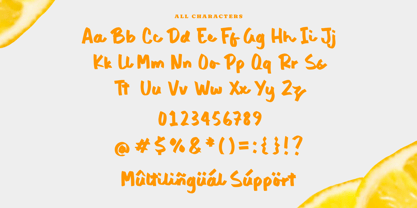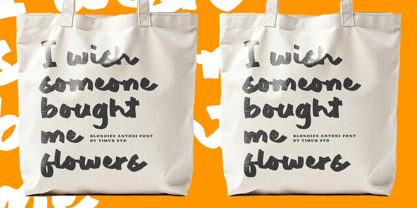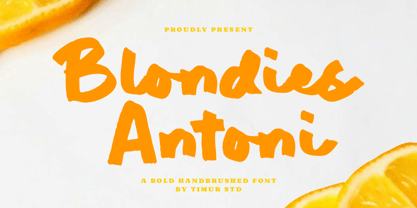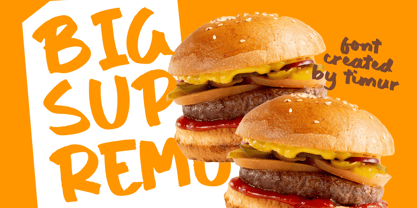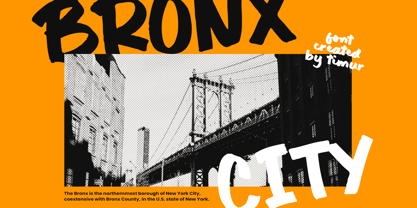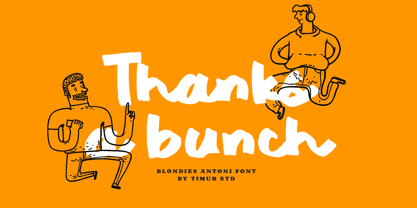
Blondies Antoni
by Timurtype
The Blondies Antoni Font Family was designed by Wara Sigit Tri Pamungkas and published by Timurtype. Blondies Antoni contains 1 styles. More about this family
Blondies Antoni is a Bold Handbrushed Font
This font is a bold hand-brushed display font with a modern, artistic flair. Its textured strokes and dynamic shapes evoke energy and creativity, making it perfect for eye-catching designs like posters, logos, and branding materials.
Blondies Antoni Font also supports multilingualism
Designers: Wara Sigit Tri Pamungkas
Foundry: Timurtype